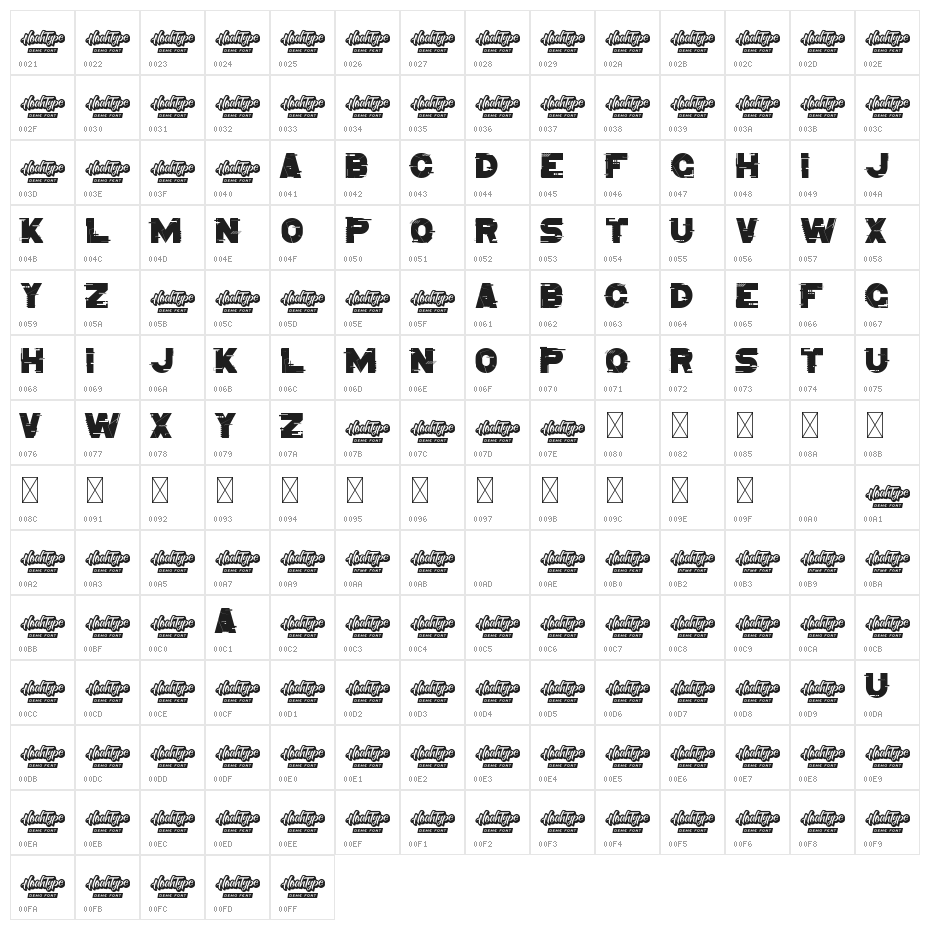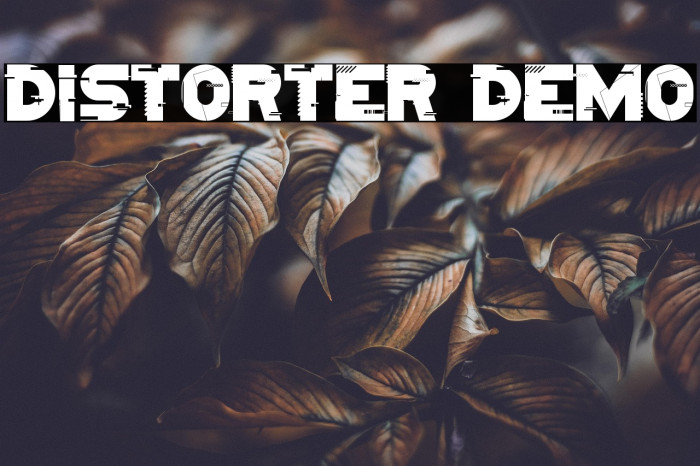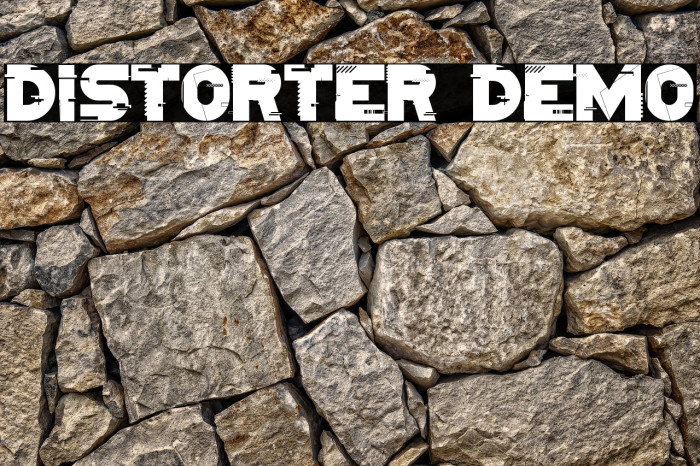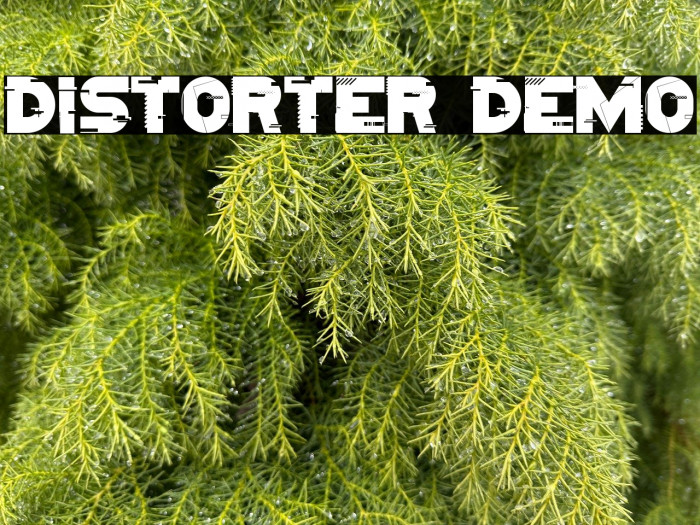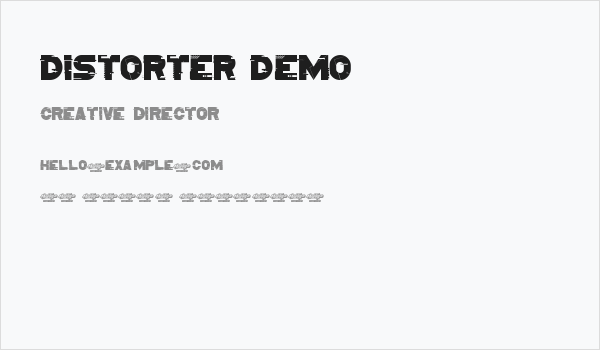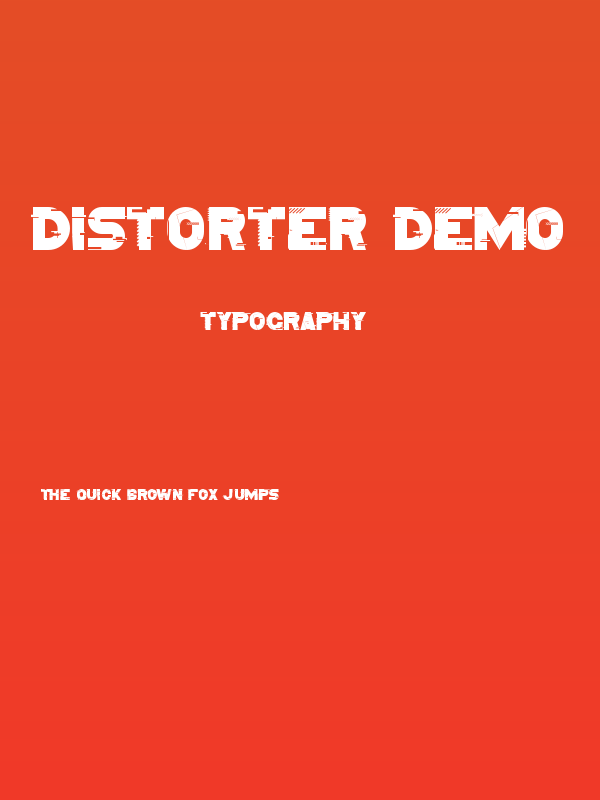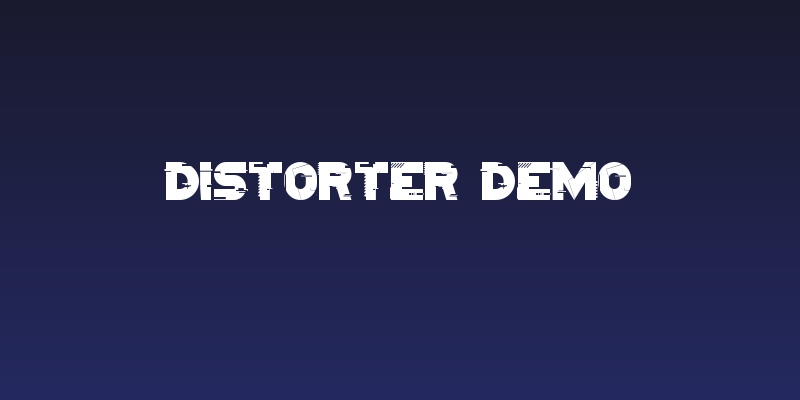
Distorter Demo Font
Distorter Demo Description
This font features a bold, geometric design with a distressed, glitch-like effect that gives it a modern and edgy appearance. The characters are blocky and robust, with sharp angles and a unique pattern that appears as if the letters are fragmented or distorted. This style creates a dynamic visual impact, making it suitable for attention-grabbing designs. The uppercase letters are particularly striking, with consistent height and width, while the lowercase letters maintain the same boldness and style. The numbers and special characters follow the same design principles, ensuring a cohesive look across all text elements.
| Proposed Projects | Ideal for digital art, music album covers, posters, and branding that requires a modern, edgy look. |